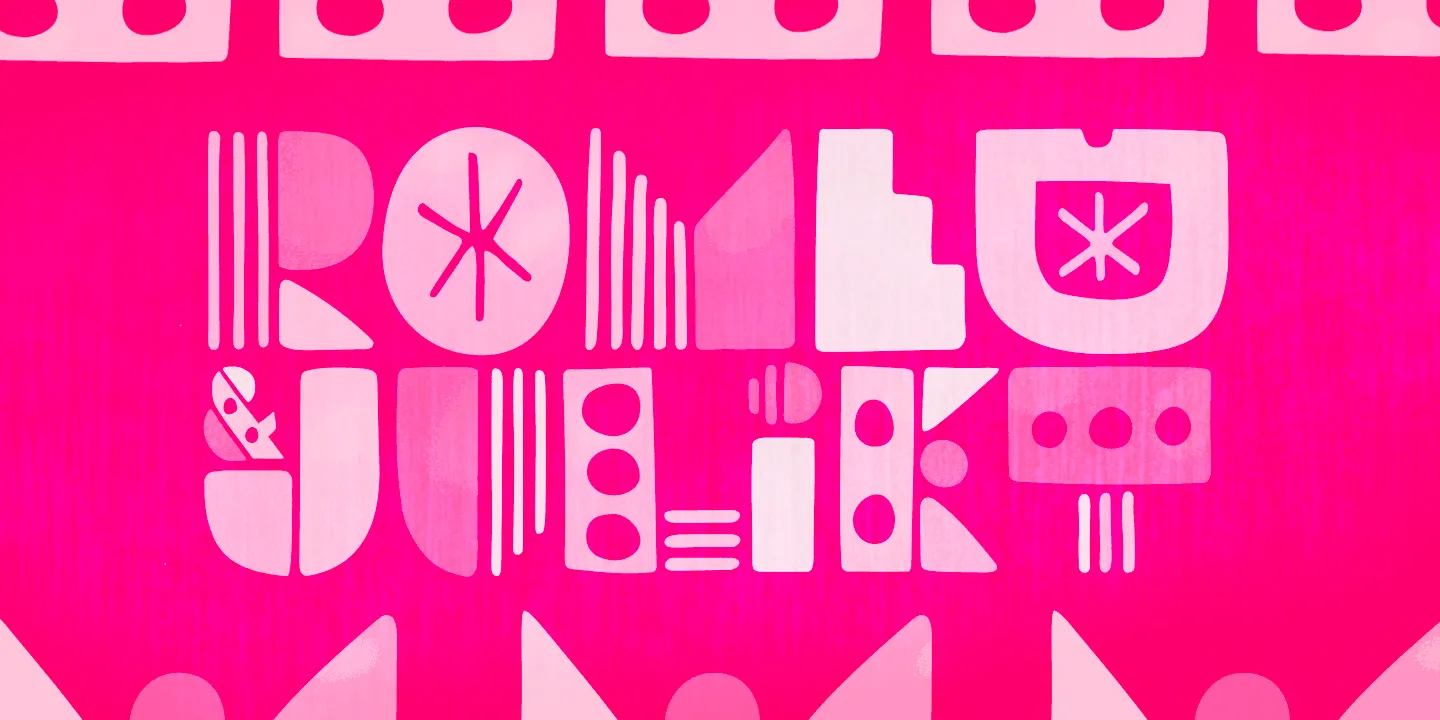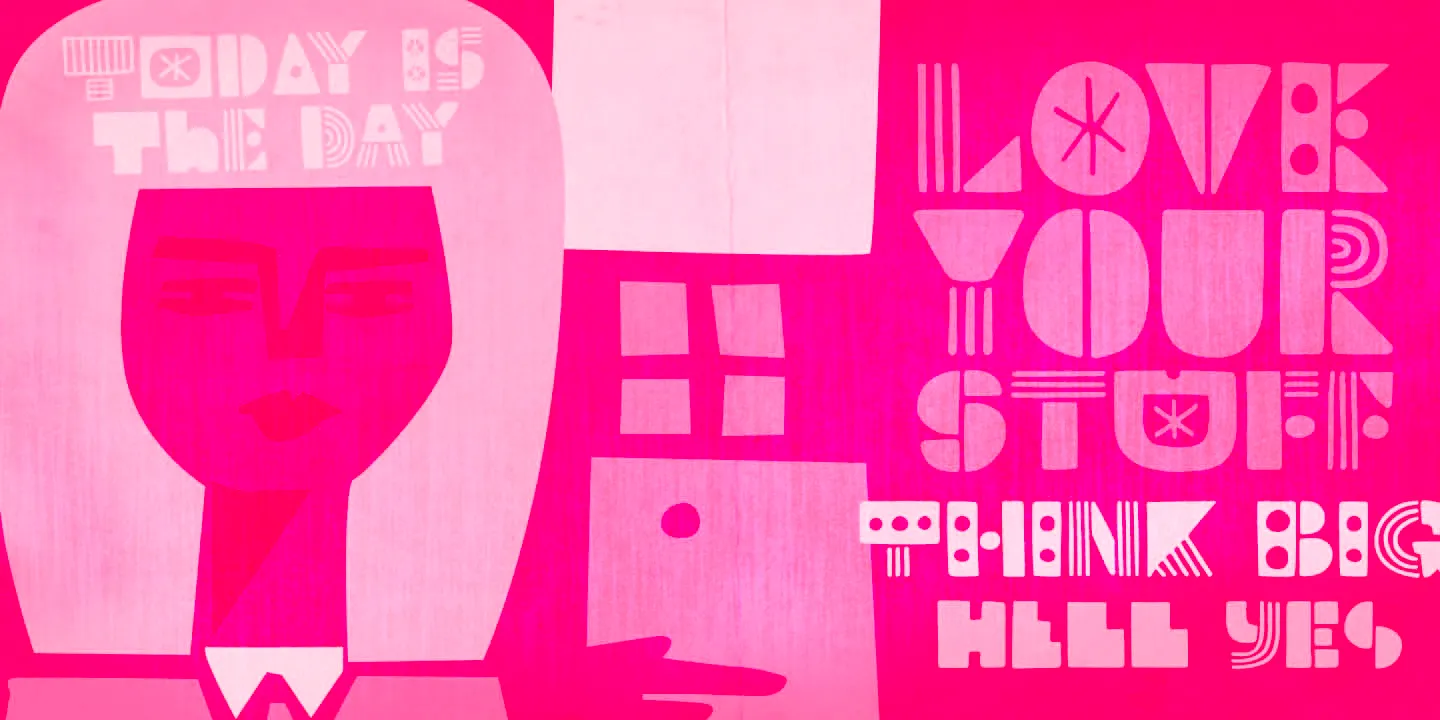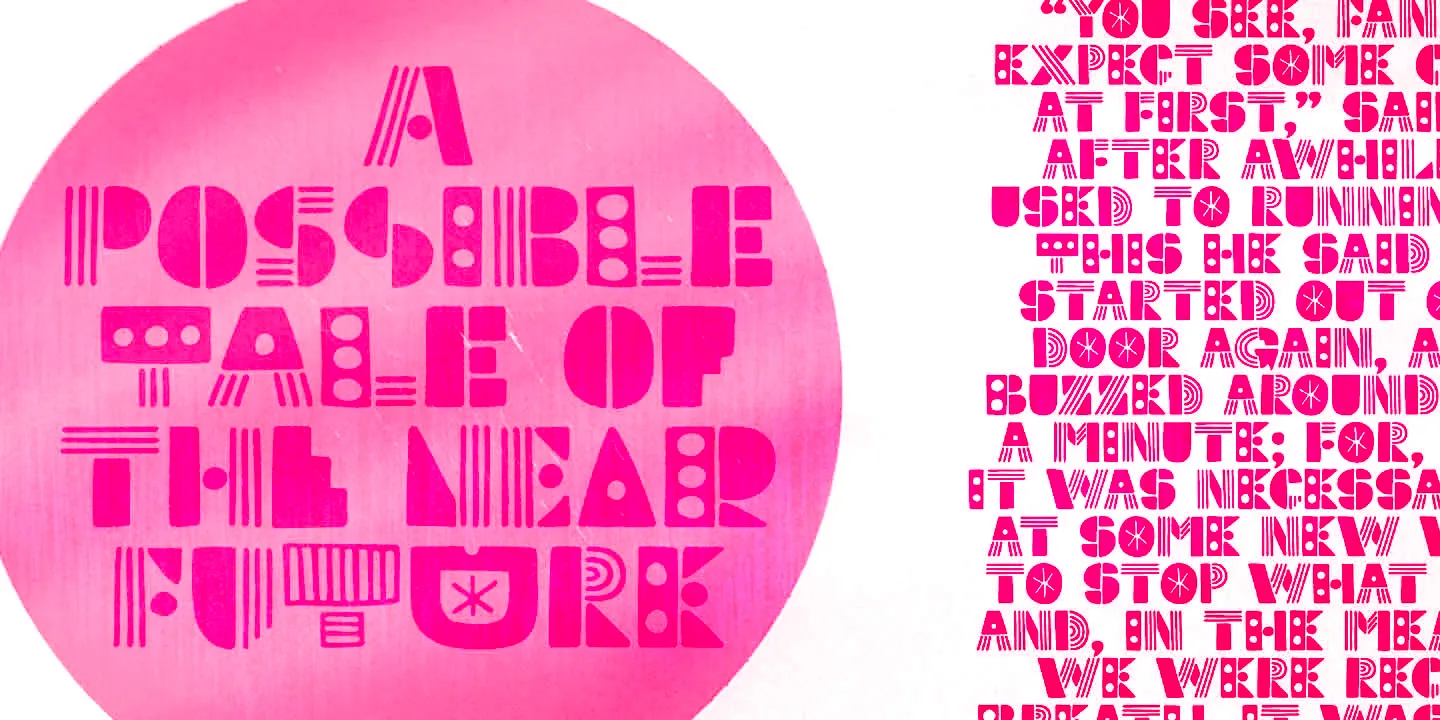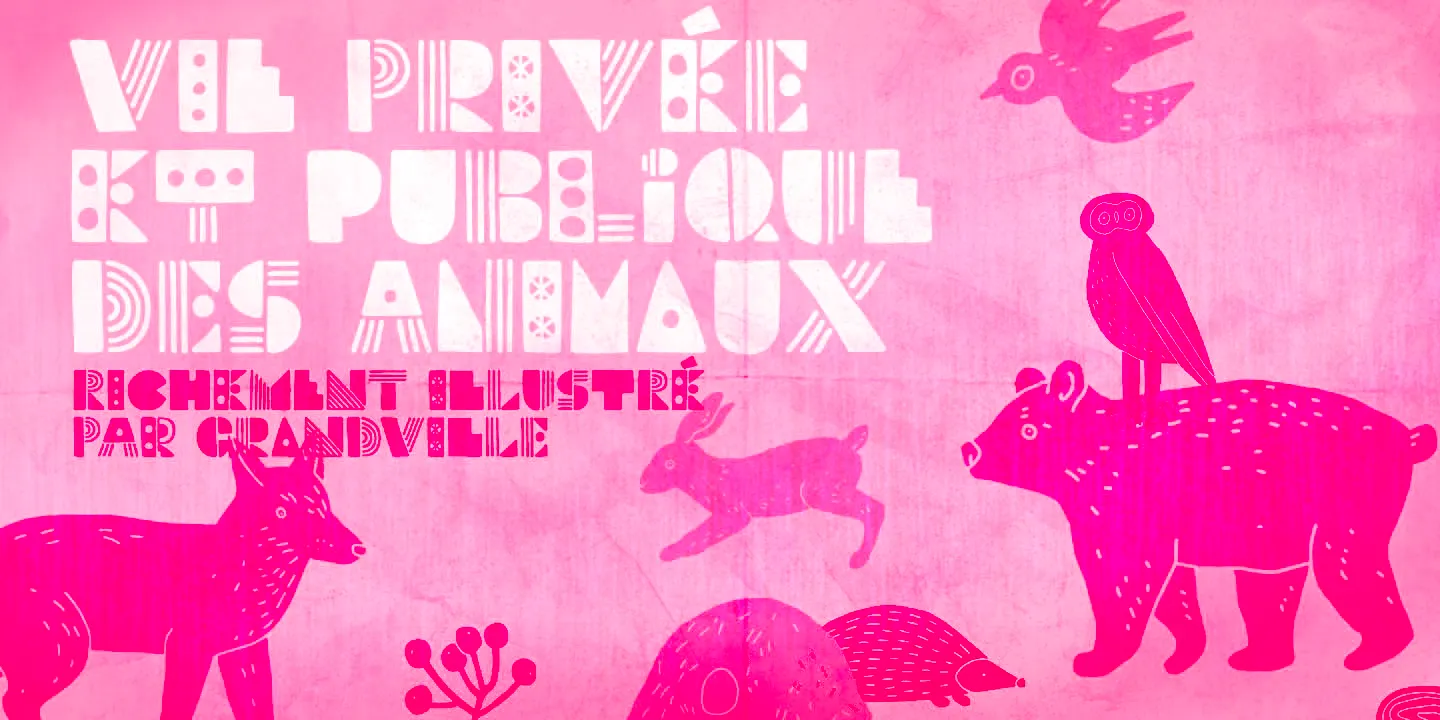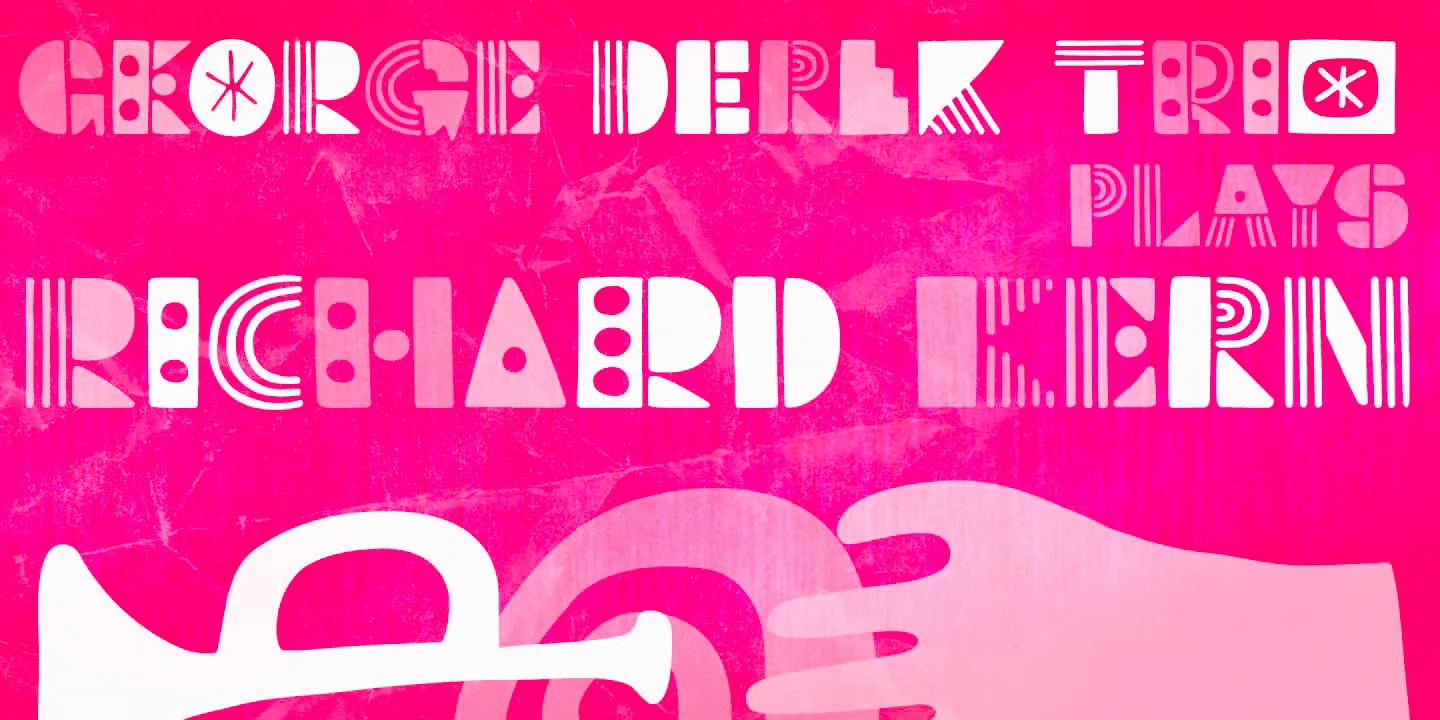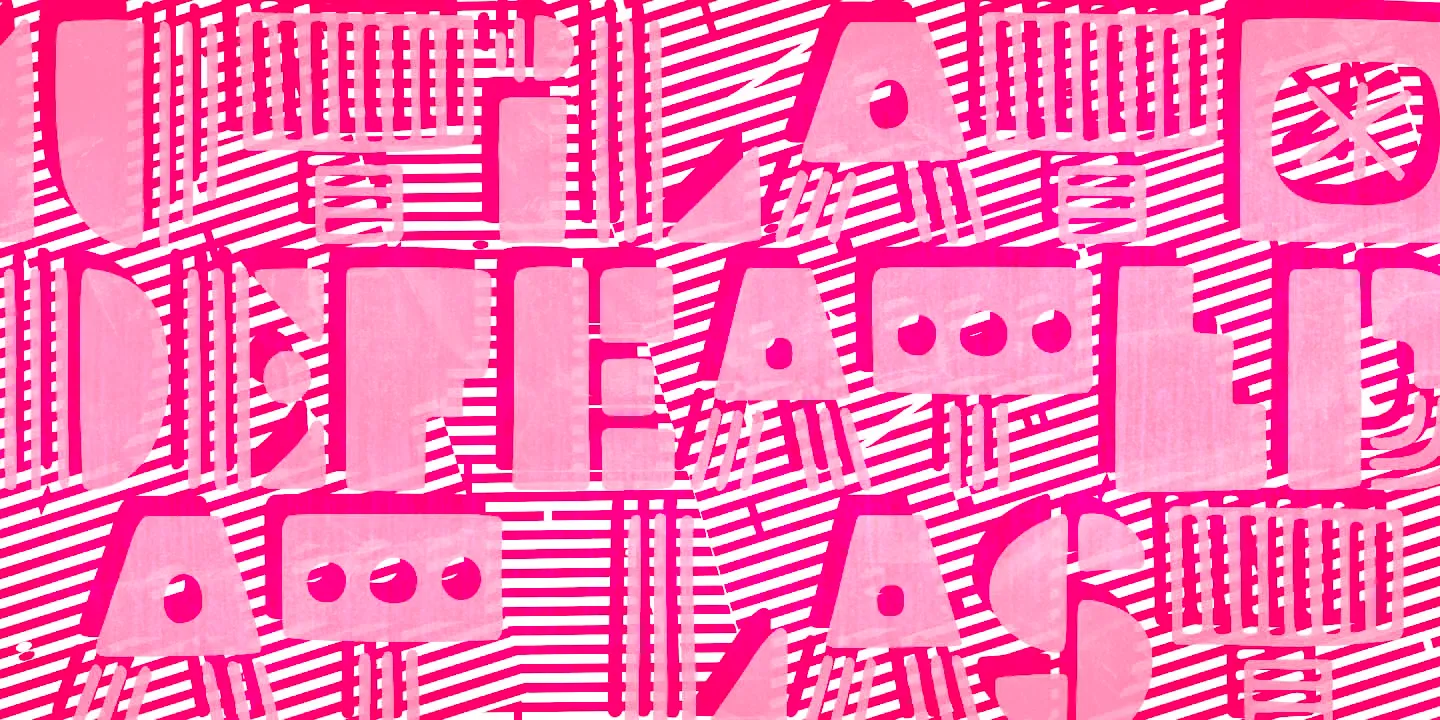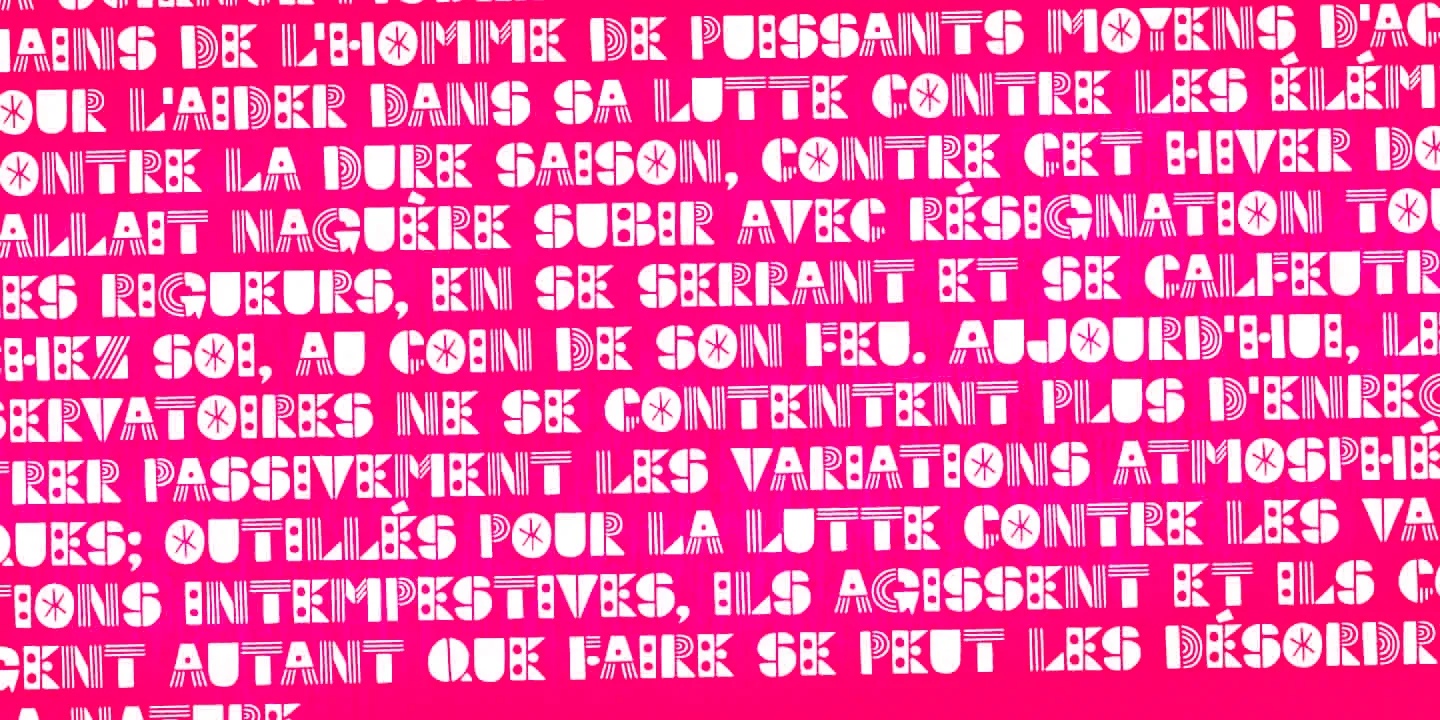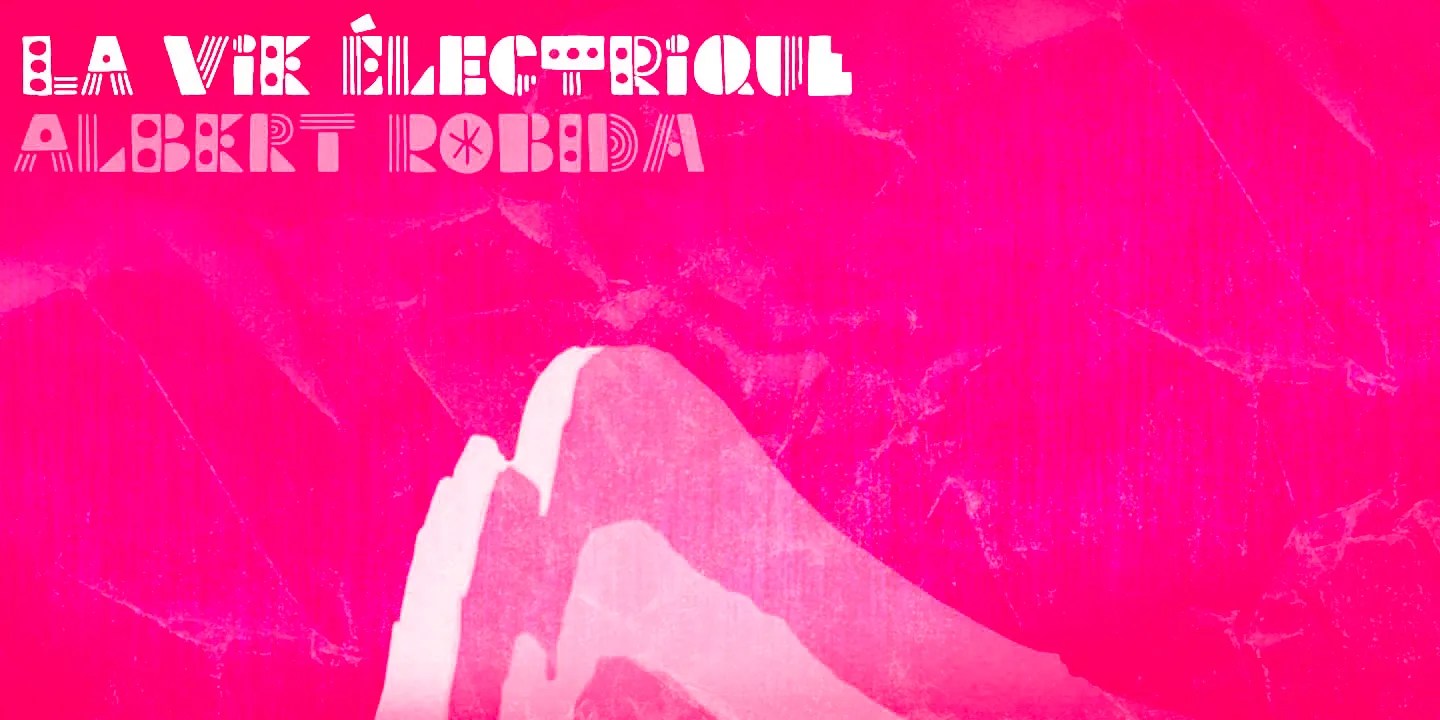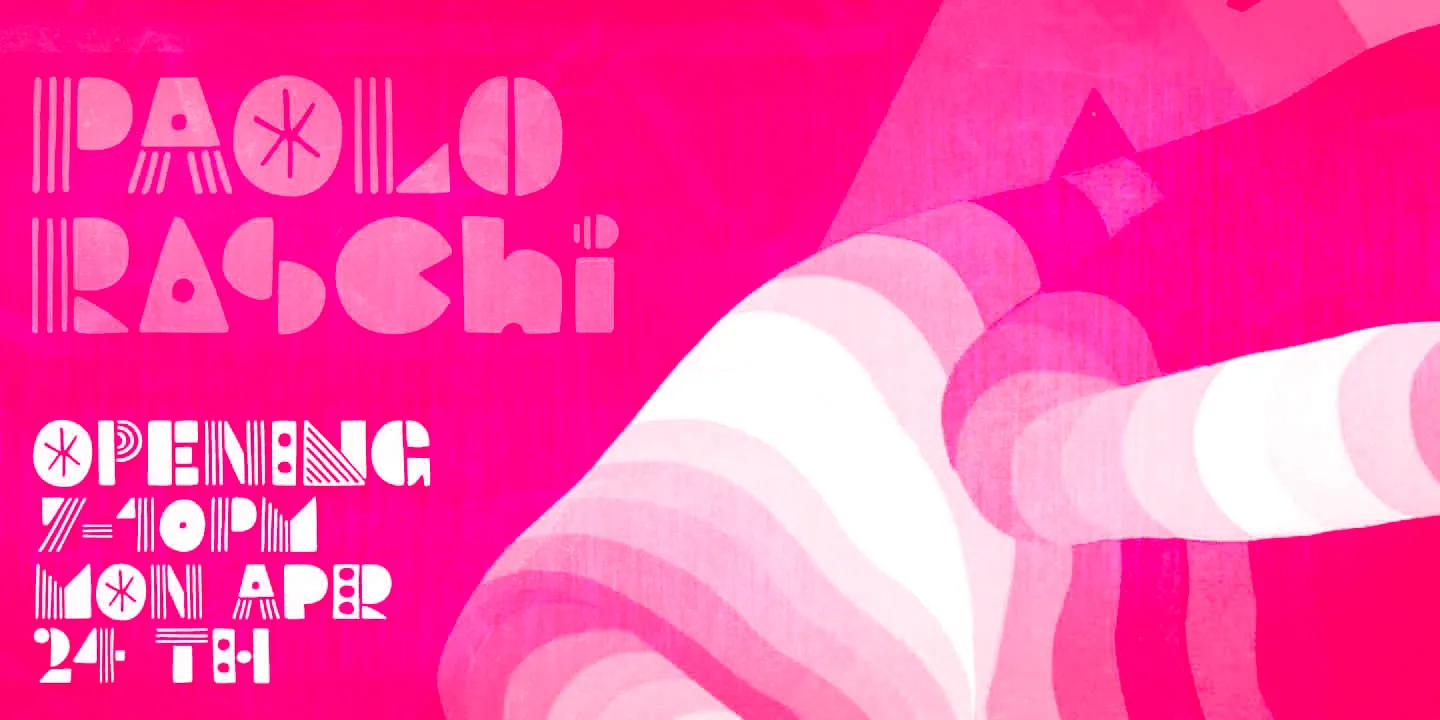
Soundstar
Soundstar is a cheerfully decorative hand-drawn original! It’s a blocky and modular design but not at all square. Playful patterns, quirky shapes, even split apart and layered! Each letterform dances with a lively, rhythmic texture. The potential for play is positively endless! It’s perfect for expressive headlines, music-themed posters, zines, product packaging, or any design where energy is key. Soundstar isn’t just bold — it’s joyfully loud, delightfully irregular, and always ready to perform.